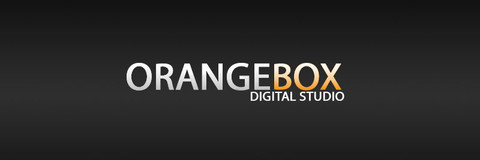
MODENO beta 1I needed a san serif font that is new fresh and modern, so i have been working endlessly on this one. This is my first font but i have read and studied enough on font making. I have made major tweaks and ironed out ALOT of issues, for me its still not complete, it looks complete but im sure that if you guys download it you might want something tweaked, kerning has been carefully tweaked but its still not there where I want it, if ya like the font download it and test it, if ya like it fine, if ya have some suggestions just comment or send me a message
Nice work. Looks very neat and with a simplistic elegance.
This is a an elegant, but relaxed font. Beautifully designed, and it scales well. Thanks for sharing it-it's wonderful.